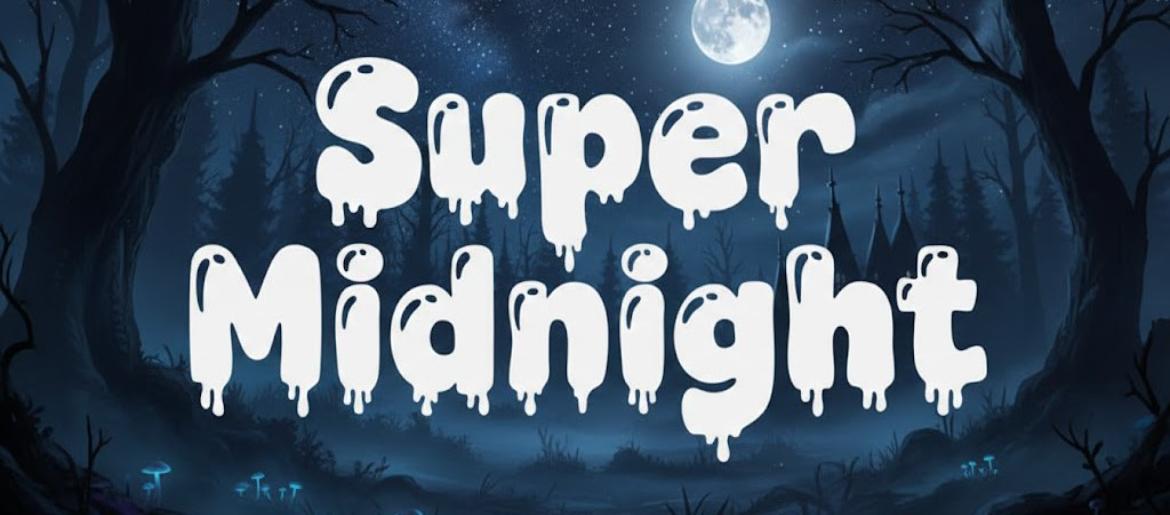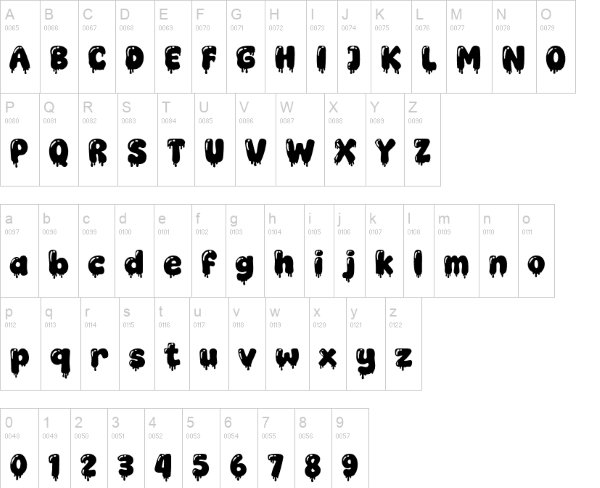
Super Midnight Font
Super Midnight Font is a spooky yet playful display typeface that blends Halloween vibes with bubbly, rounded letterforms. Its bold shapes and fun, eerie personality make it perfect for party flyers, horror-themed designs, game titles, posters, and seasonal branding. Super Midnight delivers creepy charm with a cute, eye-catching twist.
➤ Font Name: Super Midnight
➤ Designer: fsuarez913
➤ Style: Halloween